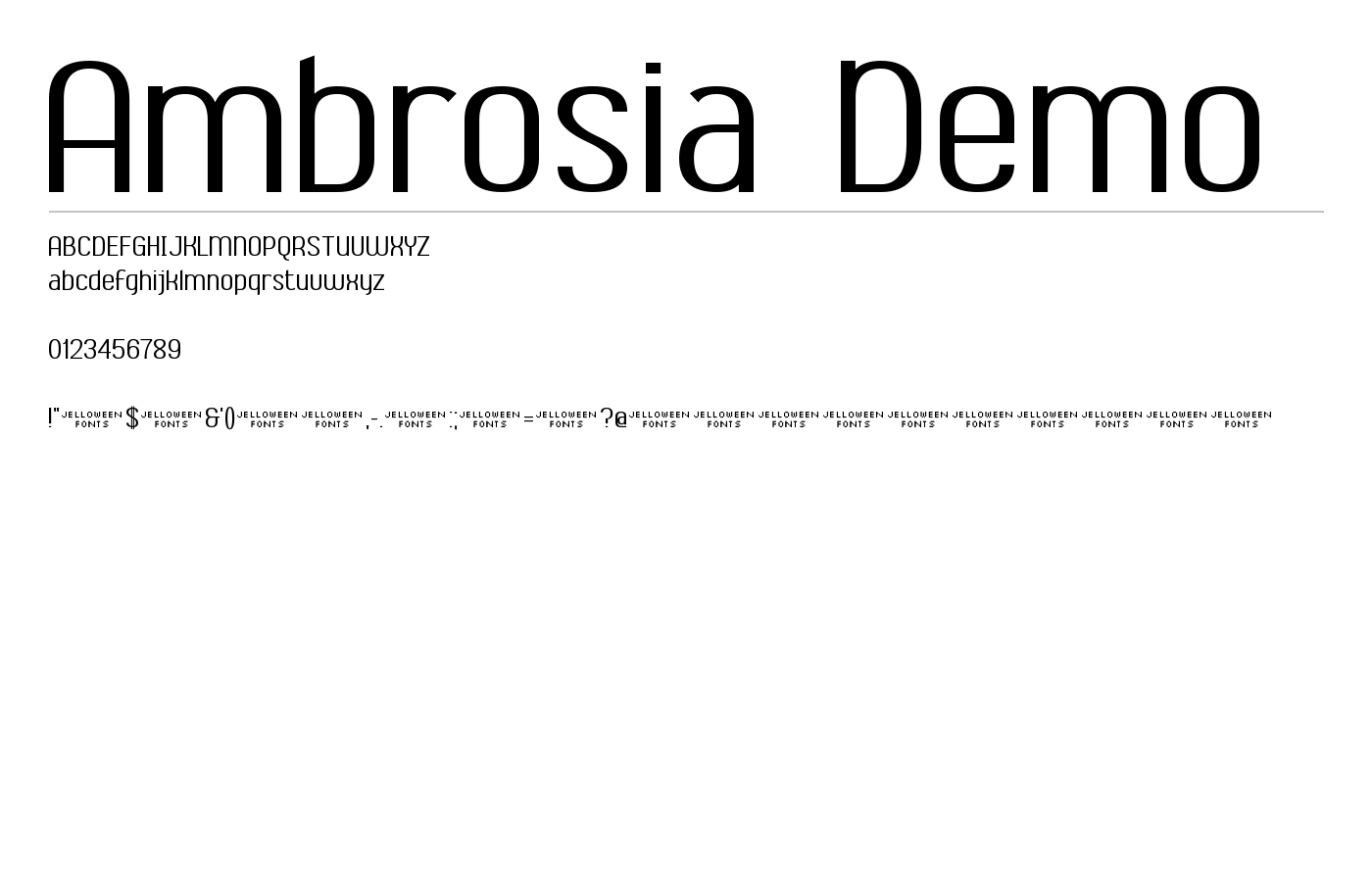
Ambrosia Demo is a narrow, sans serif font with a clean and modern appearance characterized by its tall x-height and uniform stroke weight. Its slender, slightly condensed letterforms lend an elegant yet minimalist feel, making it well-suited for stylish headlines, logos, and editorial layouts where space is limited but clarity and sophistication are desired. This font is ideal for contemporary branding and design projects that require a sleek, refined look without excessive ornamentation.
Ambrosia Demo Font
About Ambrosia Demo Font